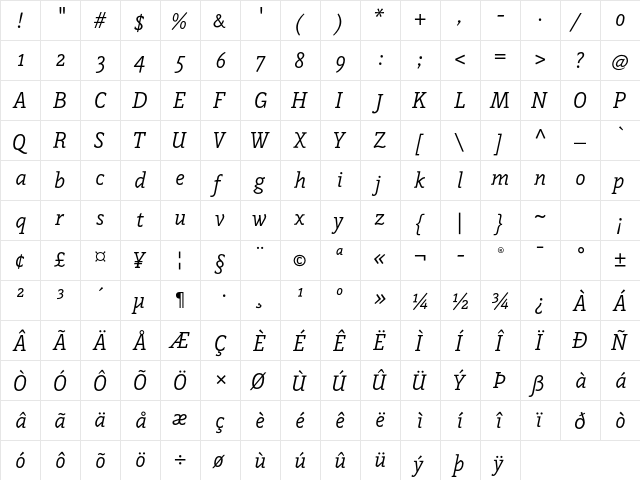
Napoleone Slab ITC Std Italic
| Designer | Silvio Napoleone |
Design Context for Napoleone Slab ITC Std Typeface
Napoleone Slab ITC Std features prominent, blocky serifs that give it a confident, grounded presence — equally at home in editorial settings and bold branding work. The dynamic lean of this cut emphasises speed and emphasis in any layout.
Suited to magazines, political campaign materials, bold packaging, and any setting where authority matters.
Pro Tip: Use Napoleone Slab ITC Std for headlines and subheadings where its slab serifs can make an impression. It also holds up well in mid-size body copy thanks to its sturdy construction.